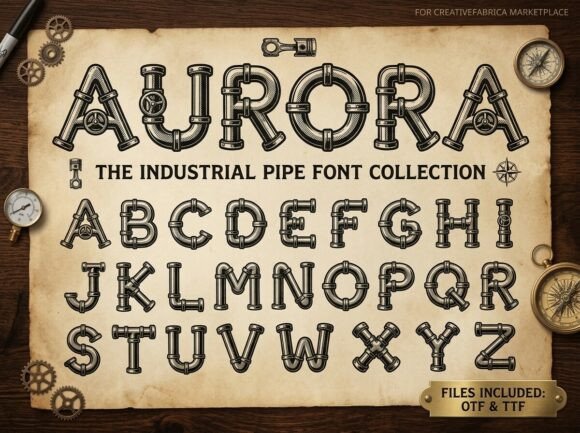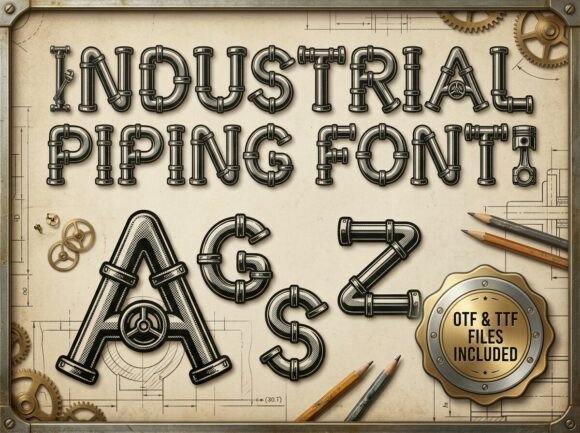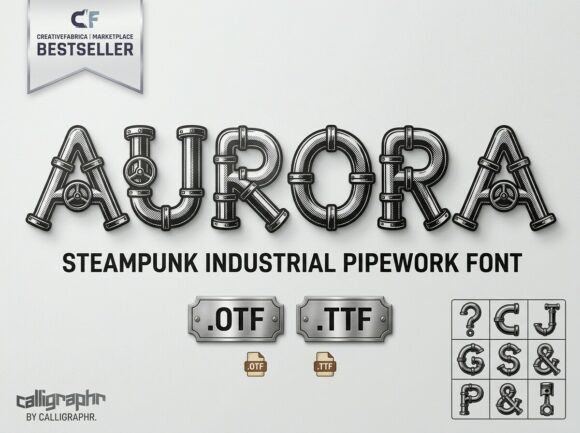
Aurora Font: Unleashing the Power of Steam and Steel
In the realm of typography, few fonts have managed to capture the essence of industrial engineering and steampunk aesthetics as effectively as Aurora. This intricately detailed display font is a masterpiece of steam and steel, meticulously constructed from heavy-duty pipes, pressure valves, bolted joints, and mechanical fittings. If you’re a designer or crafter looking for a robust, “built-to-last” aesthetic that feels authentic and high-quality, Aurora is the definitive choice for your next project.
The Industrial Inspiration Behind Aurora
Aurora’s design is deeply rooted in the industrial revolution, drawing inspiration from the rugged, mechanical beauty of steam-powered machinery. Every character is crafted with precision, featuring intricate details that evoke the feeling of heavy-duty construction. From the curved pipes and valves to the bolted joints and fittings, each element is carefully considered to create a cohesive, industrial look that’s both visually striking and authentic.
Perfect for Steampunk-Themed Branding and Design
Aurora is an ideal choice for designers and crafters working on steampunk-themed projects, including branding, logos, signage, and book covers. The font’s industrial aesthetic and attention to detail perfectly capture the essence of the steampunk genre, evoking a sense of nostalgia and retro-futurism. Whether you’re designing for a boutique distillery, a vintage workshop, or a cinematic alternate-history epic, Aurora provides a unique and captivating visual identity that’s sure to leave a lasting impression.
Key Features of Aurora Font
- Intricately detailed design: Every character is meticulously constructed from heavy-duty pipes, pressure valves, bolted joints, and mechanical fittings.
- Industrial aesthetic: Aurora’s design is deeply rooted in industrial engineering, making it perfect for industrial-style logos, signage, and branding.
- Steampunk-themed: The font’s unique blend of steam and steel elements makes it an ideal choice for steampunk-themed projects.
- High-quality and authentic: Aurora’s attention to detail and robust design make it feel authentic and high-quality, perfect for designers and crafters looking for a premium font.
Using Aurora in Your Design Projects
Aurora is a versatile font that can be used in a variety of design projects, from branding and logos to signage and book covers. Here are a few ideas to get you started:
- Boutique distillery branding: Use Aurora to create a unique and captivating visual identity for your boutique distillery, evoking a sense of nostalgia and industrial charm.
- Vintage workshop signage: Create eye-catching signage for your vintage workshop or store using Aurora’s industrial aesthetic.
- Steampunk-themed book covers: Use Aurora to create a stunning book cover for your steampunk-themed novel or comic book, capturing the essence of the genre.
- Escape room design: Incorporate Aurora into your escape room design to create an immersive and engaging experience for players.
Aurora font is a masterpiece of industrial engineering and steampunk aesthetics, offering a unique and captivating visual identity for designers and crafters. With its intricately detailed design, industrial aesthetic, and high-quality feel, Aurora is the perfect choice for a wide range of design projects. Whether you’re working on a steampunk-themed branding project, industrial-style logo, or retro-futuristic book cover, Aurora provides a robust, “built-to-last” aesthetic that’s sure to leave a lasting impression.